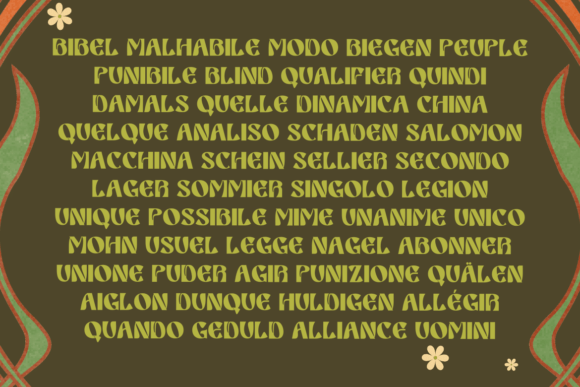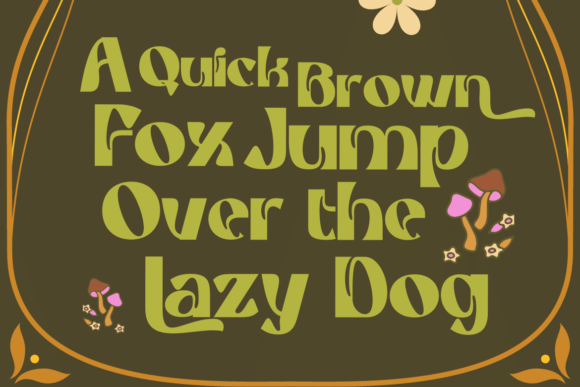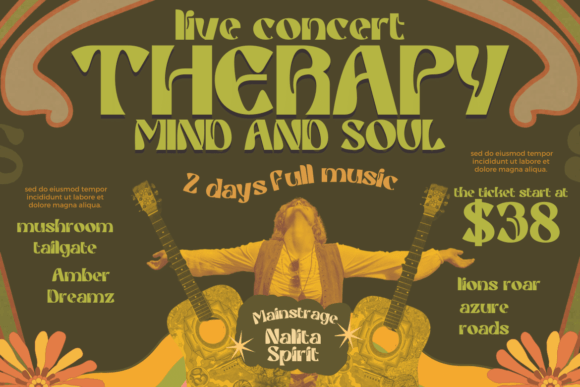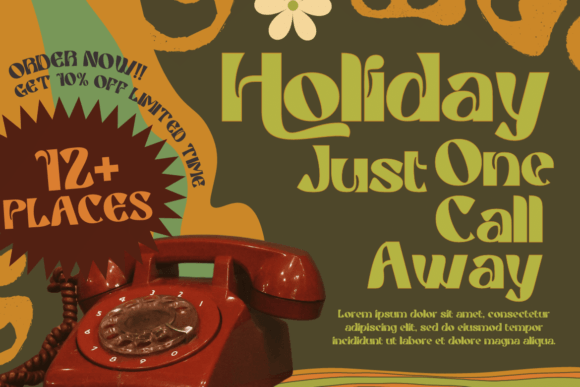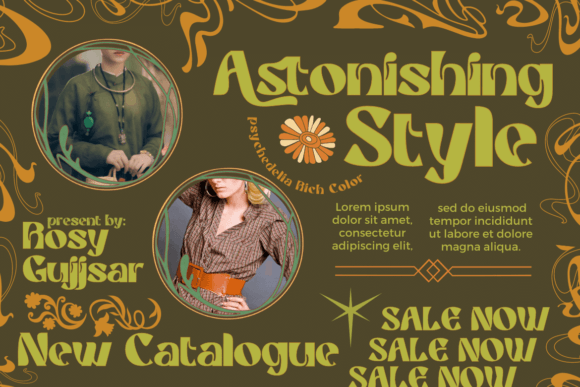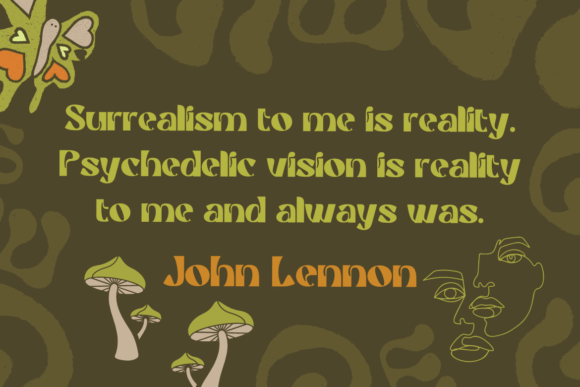
Griaste Font: Elevate Your Designs with a Cool, Quirky, and Fun Typeface
Are you tired of using the same old fonts in your designs? Look no further than Griaste Font, a unique and visually stunning typeface that’s perfect for designers and crafters looking to add a touch of personality to their projects. With its high contrast between thin and thick lines and shapes, Griaste Font is sure to make your designs stand out from the crowd.
The Unique Characteristics of Griaste Font
So, what makes Griaste Font so special? For starters, its high contrast between thin and thick lines and shapes gives it a beautiful, visually unique aesthetic that’s sure to turn heads. But that’s not all – Griaste Font also features alternate and ligature options, allowing you to add an extra layer of quirkiness to your designs.
Whether you’re working on a logo, a poster, or a digital project, Griaste Font is the perfect choice for anyone looking to add a bit of fun and personality to their design. And with its versatility, you can use it in a wide range of projects, from formal to informal, and still achieve a professional-looking result.
Why Designers and Crafters Love Griaste Font
Designers and crafters are always on the lookout for fonts that can help them create unique and eye-catching designs. Griaste Font delivers on this front, offering a fresh and exciting alternative to more traditional typefaces. Here are just a few reasons why designers and crafters love Griaste Font:
• High contrast: The high contrast between thin and thick lines and shapes in Griaste Font creates a visually stunning effect that’s sure to grab attention.
• Alternate and ligature features: With alternate and ligature options, you can add an extra layer of quirkiness to your designs and make them truly one-of-a-kind.
• Versatility: Griaste Font is perfect for a wide range of projects, from logos and posters to digital projects and more.
• Ease of use: Despite its unique features, Griaste Font is easy to use and can be incorporated into your designs with minimal fuss.
How to Maximize Your Design with Griaste Font
Now that you know a bit more about Griaste Font, let’s talk about how to maximize your design using this amazing typeface. Here are a few tips to get you started:
• Experiment with different sizes: Griaste Font looks great in a variety of sizes, so don’t be afraid to experiment and find the perfect size for your project.
• Play with color: The high contrast in Griaste Font makes it perfect for use with a range of colors. Try pairing it with bold, bright colors for a truly eye-catching effect.
• Use it sparingly: While Griaste Font is certainly attention-grabbing, it can also be overwhelming if used too much. Try using it sparingly to add a touch of personality to your design.
• Pair it with other fonts: Griaste Font pairs well with a range of other fonts, so don’t be afraid to experiment and find the perfect combination for your project.
In conclusion, Griaste Font is a cool, quirky, and fun typeface that’s perfect for designers and crafters looking to add a touch of personality to their projects. With its high contrast between thin and thick lines and shapes, alternate and ligature features, and versatility, Griaste Font is sure to elevate your designs and make them stand out from the crowd.